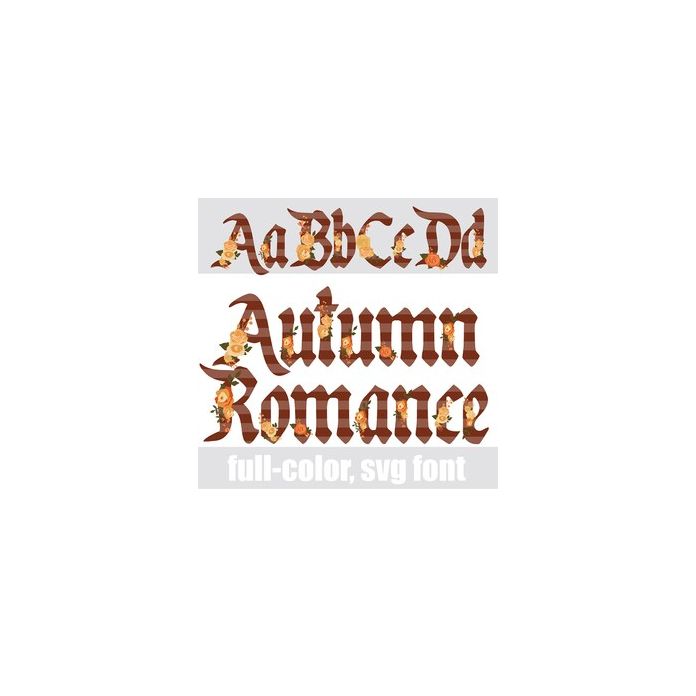
This full-color font features pretty neutral colored roses and earthy stripes. There is an alt case w/ additional colors you can access through your system or Silhouette's glyph map.